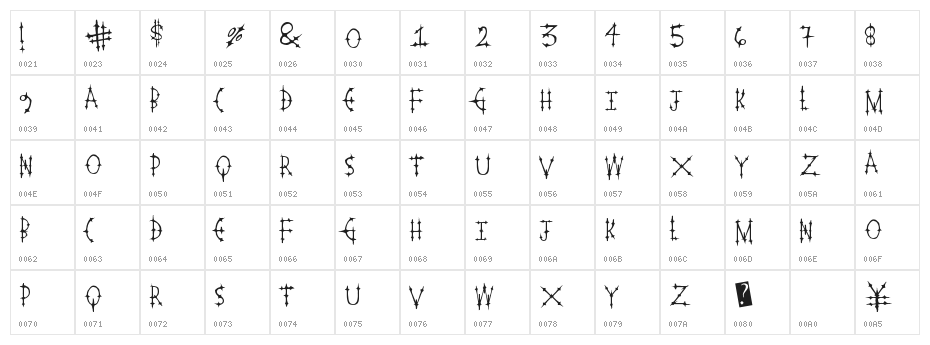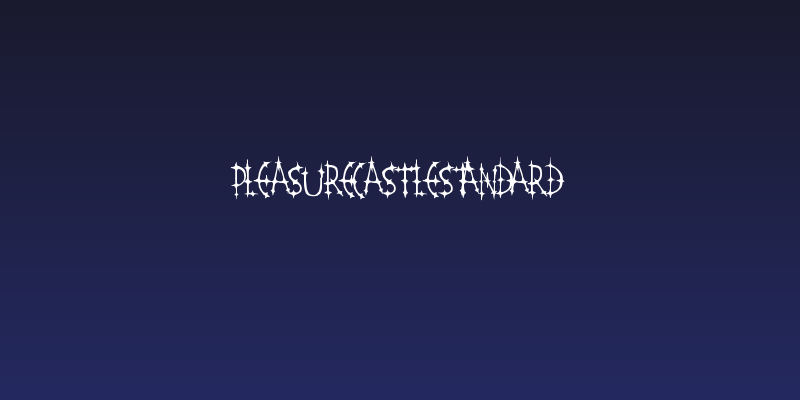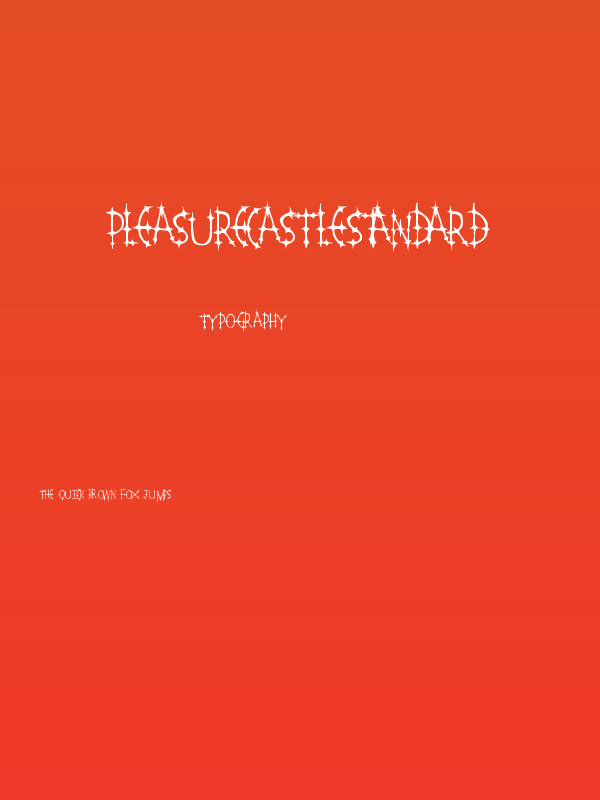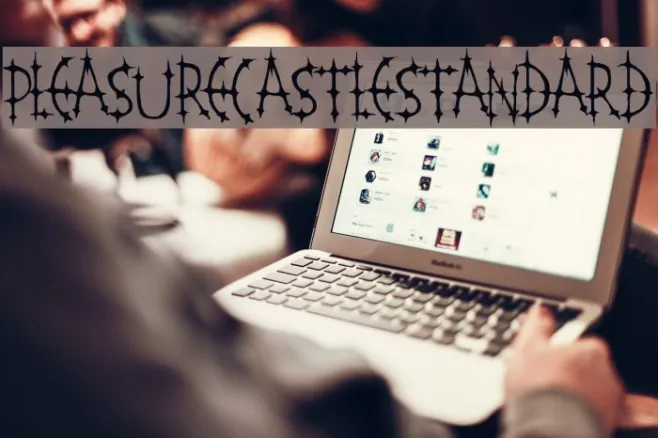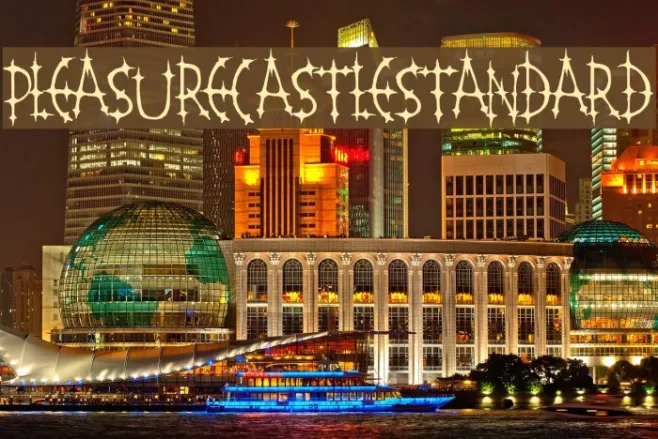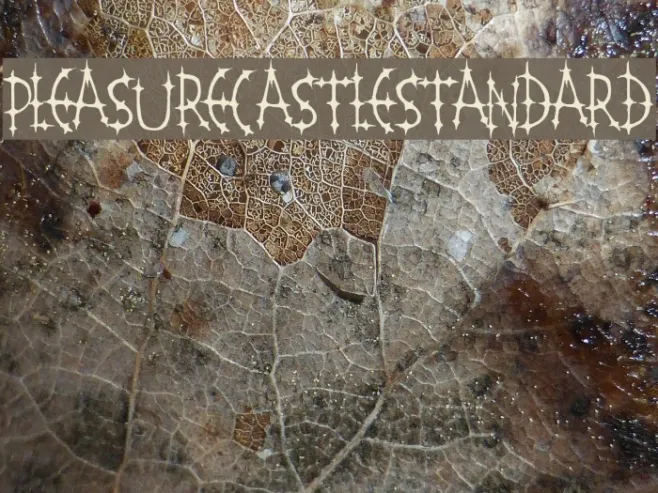
PleasureCastleStandard Font
PleasureCastleStandard Description
This font features a unique and edgy design, characterized by sharp, thorn-like extensions on each character, giving it a gothic and slightly menacing appearance. The letters are tall and narrow, with a consistent height across both uppercase and lowercase characters. The numerals and special characters maintain this distinctive style, ensuring a cohesive look throughout. The font's intricate details make it stand out, ideal for projects that require a bold and dramatic statement. Its decorative nature suggests a strong visual impact, suitable for specific thematic uses.
| Overall Style | Gothic, Decorative |
| Proposed Projects | Ideal for horror-themed posters, gothic event invitations, album covers, and video game graphics. |